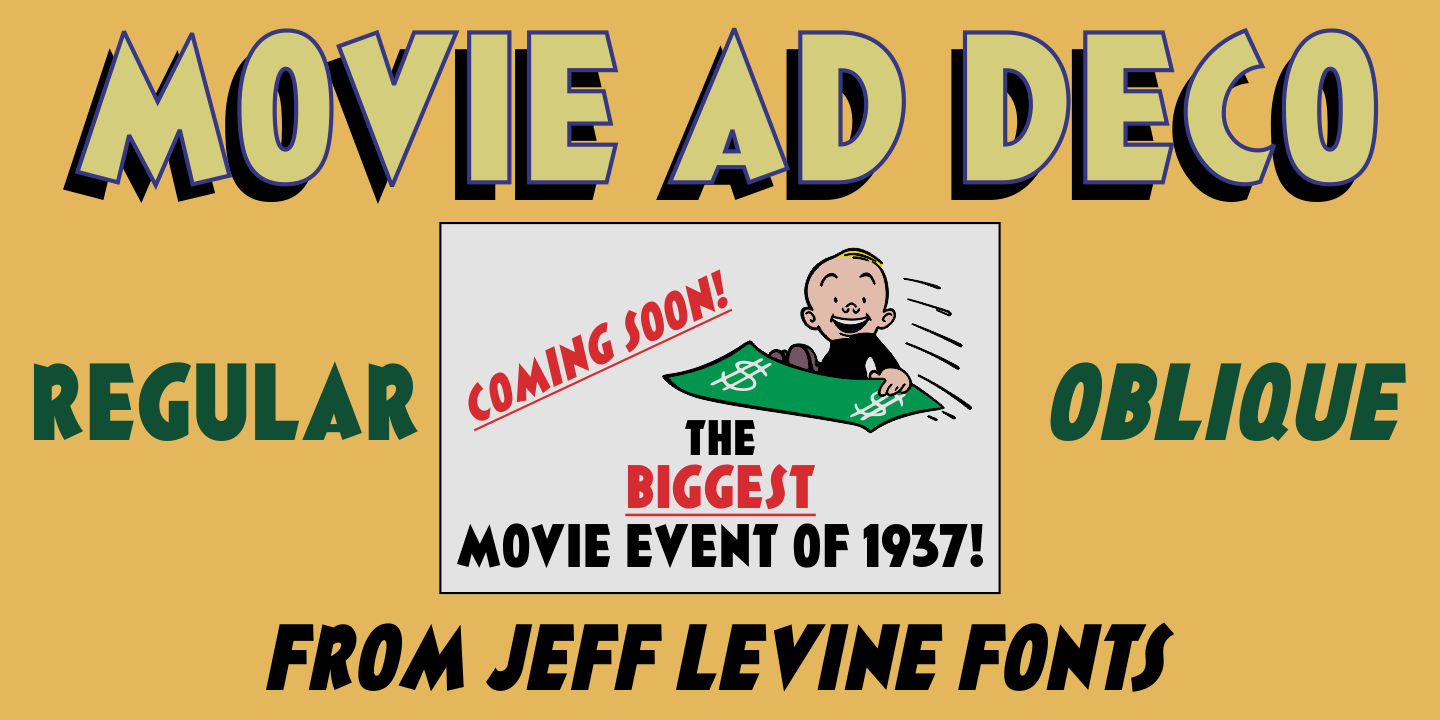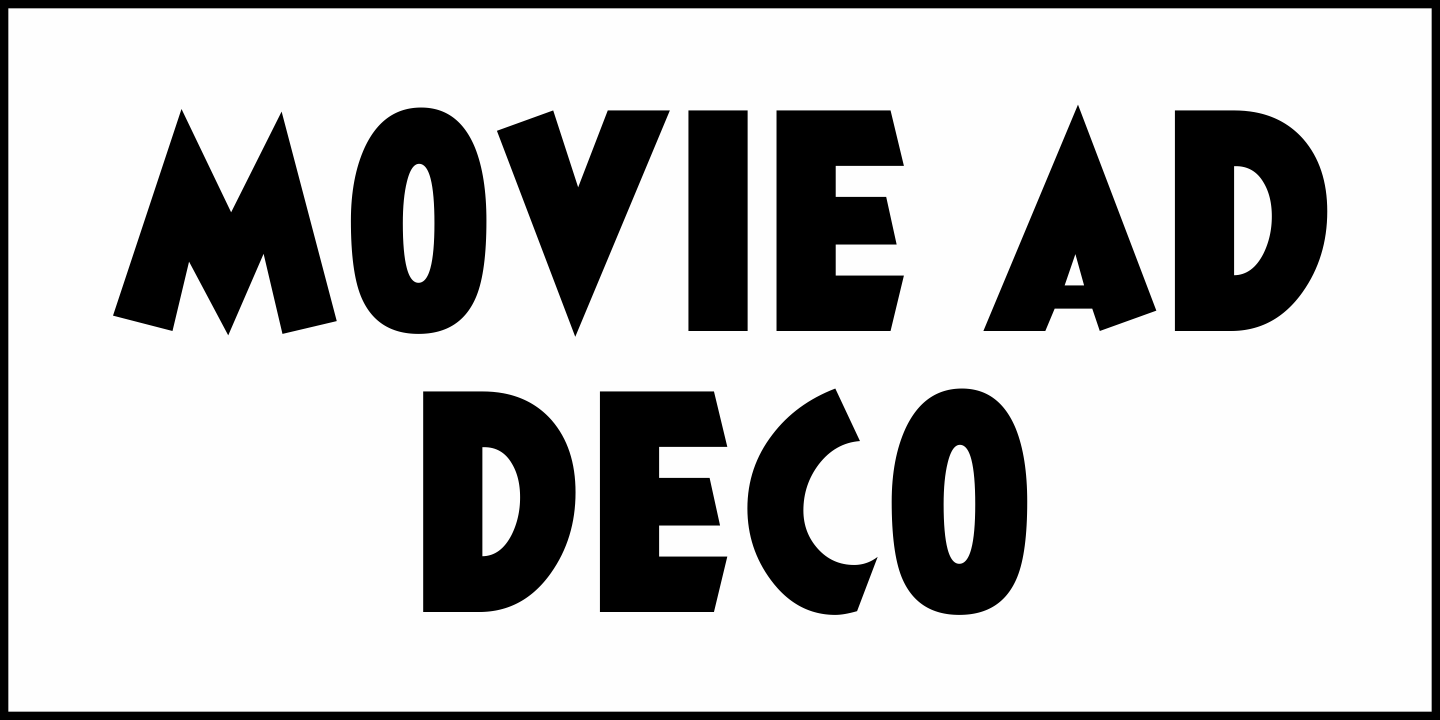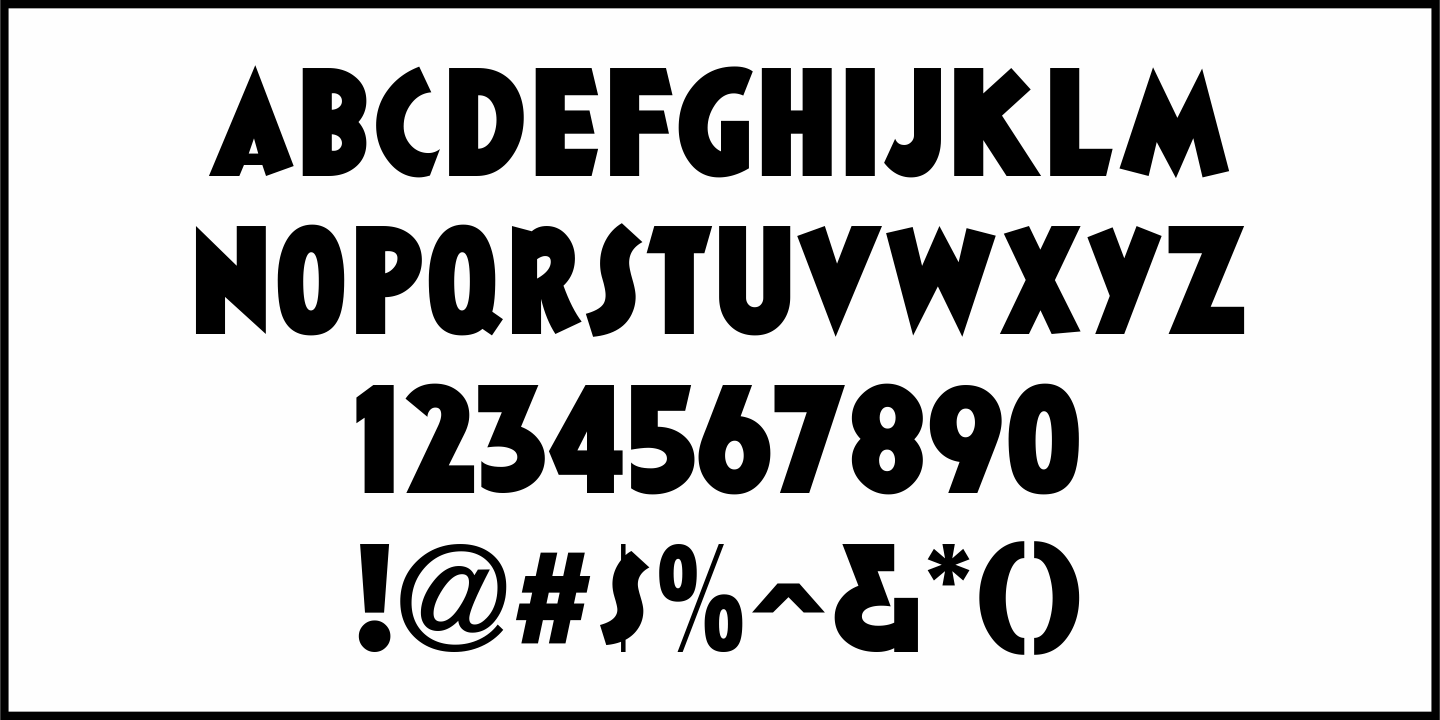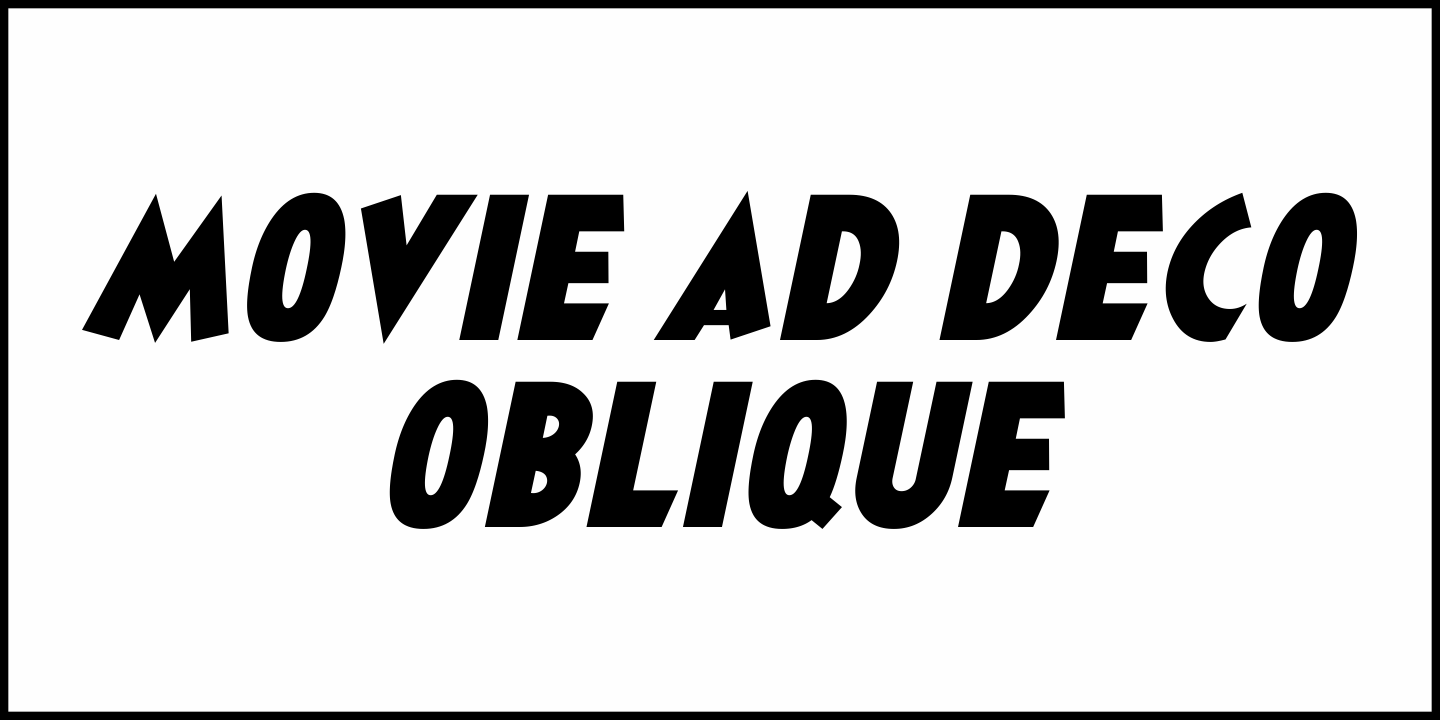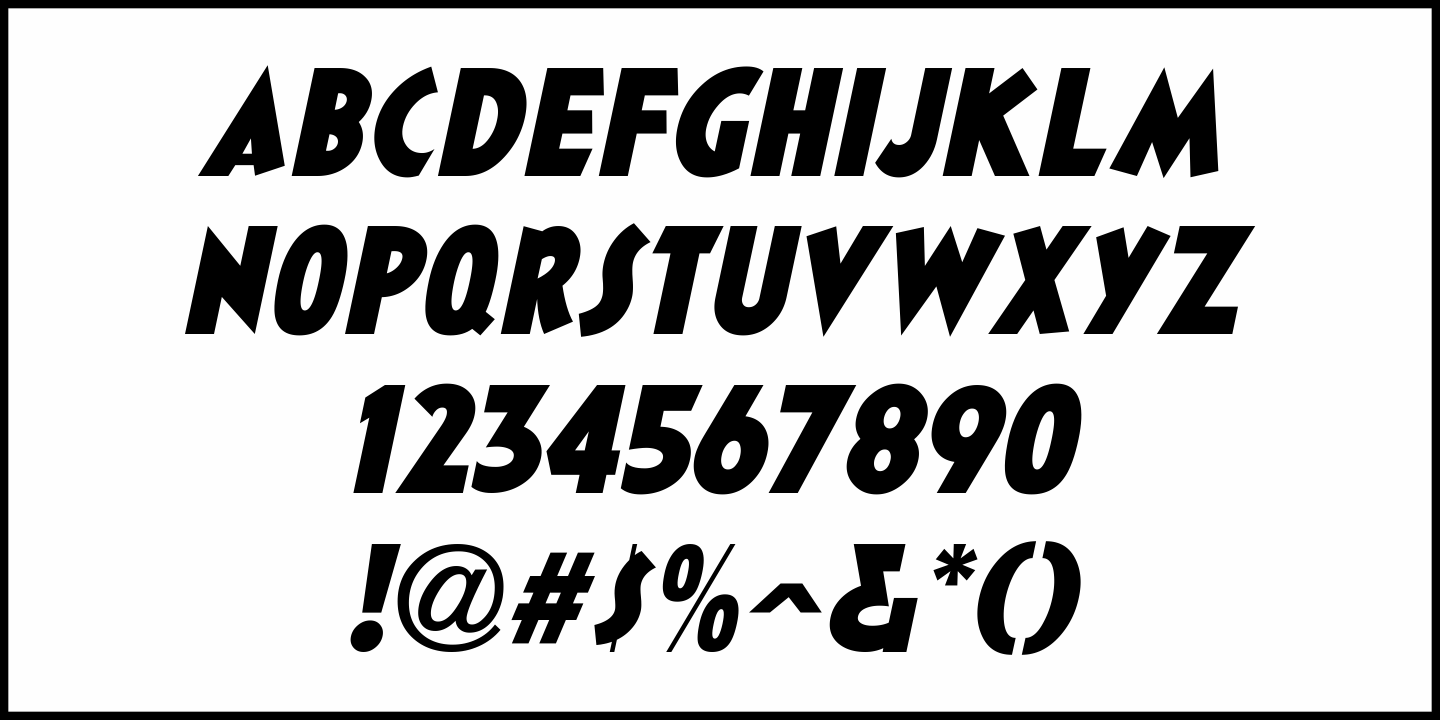
Movie Ad Deco
An extra-bold, hand lettered type design with a casual feel was used for the 1942 movie poster 'Tortilla Flat”.
This served as the inspirational model for Movie Ad Deco JNL, and is available in both regular and oblique versions.